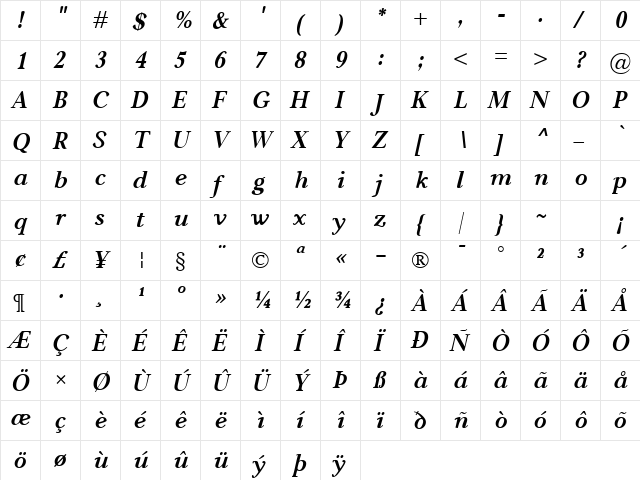
Carniola BoldItalic
Design Context for Carniola Typeface
Carniola is a composed and adaptable typeface that performs quietly and consistently across a wide range of design contexts. Its italic angle brings a sense of urgency and motion to the letterforms. Its bold stroke weight gives it real presence on the page.